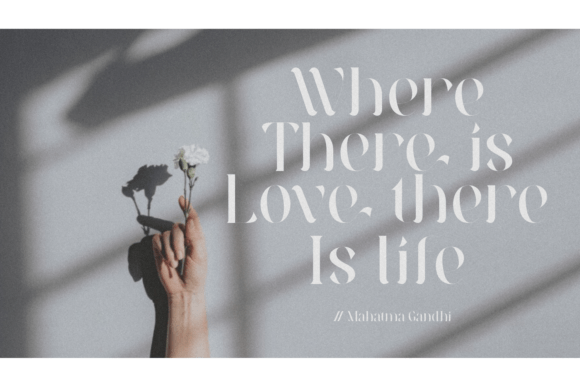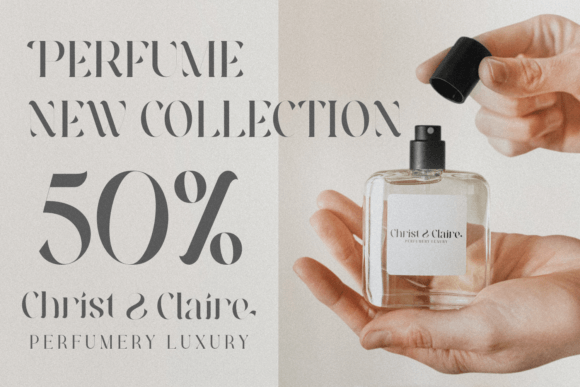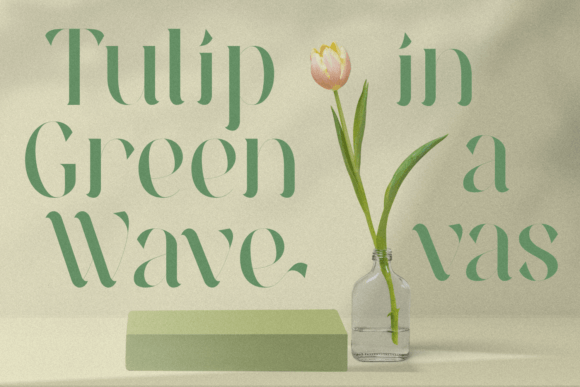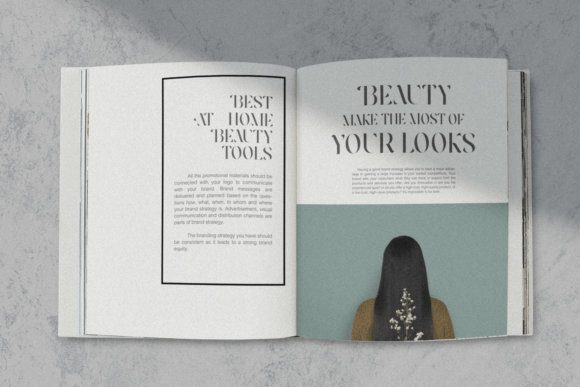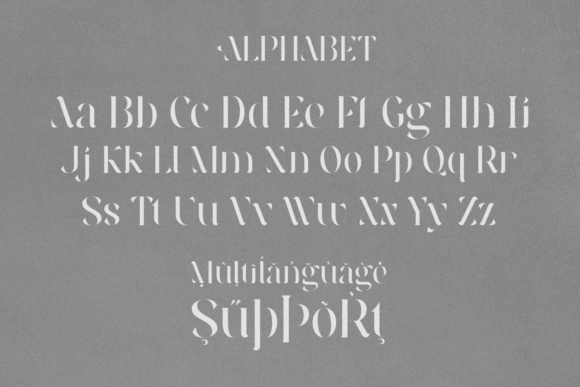
Introducing Brooklyn Avenue Font: Elevate Your Design with Timeless Elegance
In the world of typography, a font can make all the difference in elevating a design from ordinary to extraordinary. For designers and crafters seeking a serif font that exudes sophistication and luxury, look no further than Brooklyn Avenue Font. This deluxe serif font is meticulously crafted with attention to detail, boasting elegant curves and finely crafted serifs that are sure to leave a lasting impression.
A Masterclass in Classic Design
Brooklyn Avenue Font is a true testament to classic design at its finest. With a range of weights and styles to choose from, this font offers versatility and flexibility, making it perfect for high-end branding, editorial layouts, and any design project that demands a touch of sophistication. Whether you’re working on a luxury brand identity, a fashion magazine, or a high-end product packaging, Brooklyn Avenue Font is the perfect choice.
What Sets Brooklyn Avenue Font Apart
- Elegant Curves and Finely Crafted Serifs: Brooklyn Avenue Font features exquisite curves and serifs that are carefully crafted to create a sense of luxury and refinement.
- Range of Weights and Styles: With multiple weights and styles to choose from, you can use Brooklyn Avenue Font for a wide range of design projects, from body text to headlines.
Brooklyn Avenue Font is designed with designers and crafters in mind. Whether you’re working on a personal project or a client’s design brief, this font offers the perfect combination of style, sophistication, and versatility. With Brooklyn Avenue Font, you can:
- Create stunning luxury brand identities that exude elegance and refinement.
- Elevate your editorial designs with a font that commands attention and respect.
- Add a touch of sophistication to your product packaging and labels.
Why Choose Brooklyn Avenue Font?
In a world where typography plays a crucial role in design, Brooklyn Avenue Font stands out from the crowd. Here are just a few reasons why designers and crafters are choosing this exceptional font:
- Timeless Elegance: Brooklyn Avenue Font is a classic serif font that will never go out of style, ensuring your design looks as good today as it will in years to come.
- High-Quality Design: With its meticulous attention to detail and exquisite curves, Brooklyn Avenue Font is a true masterpiece of typography.
- Versatility: With multiple weights and styles to choose from, you can use Brooklyn Avenue Font for a wide range of design projects.
| Font Name | Brooklyn Avenue Font |
If you’re looking for a serif font that exudes sophistication and luxury, look no further than Brooklyn Avenue Font. With its elegant curves, finely crafted serifs, and range of weights and styles, this font is perfect for high-end branding, editorial layouts, and any design project that demands a touch of elegance. As a designer or crafter, you owe it to yourself to explore the possibilities of Brooklyn Avenue Font and discover the difference it can make in your design work.